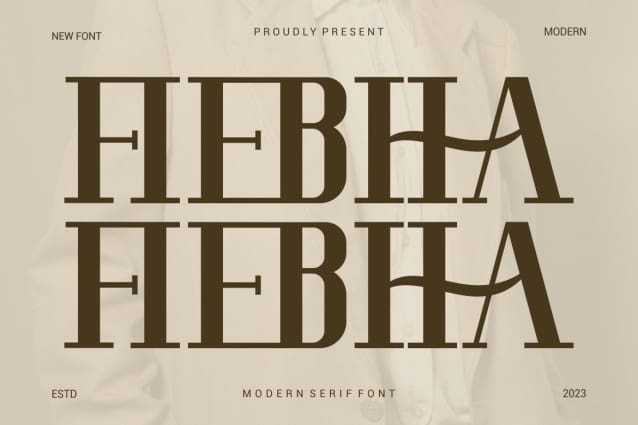
Fiebha Font
Fiebha Font is a stylish and modern font. It looks really beautiful to use on invitations such as greeting cards, business cards, quotes, posters and many more!